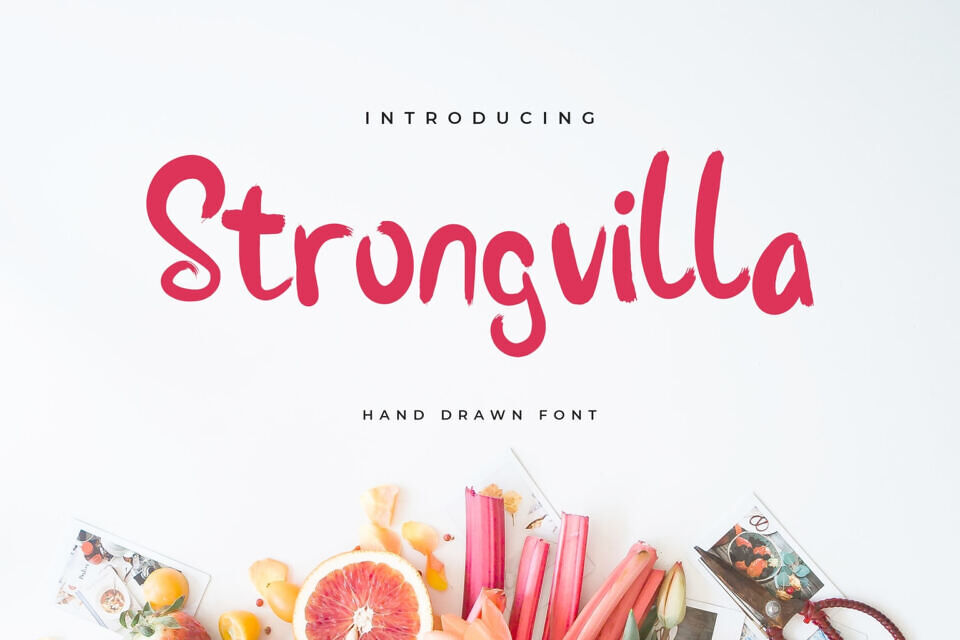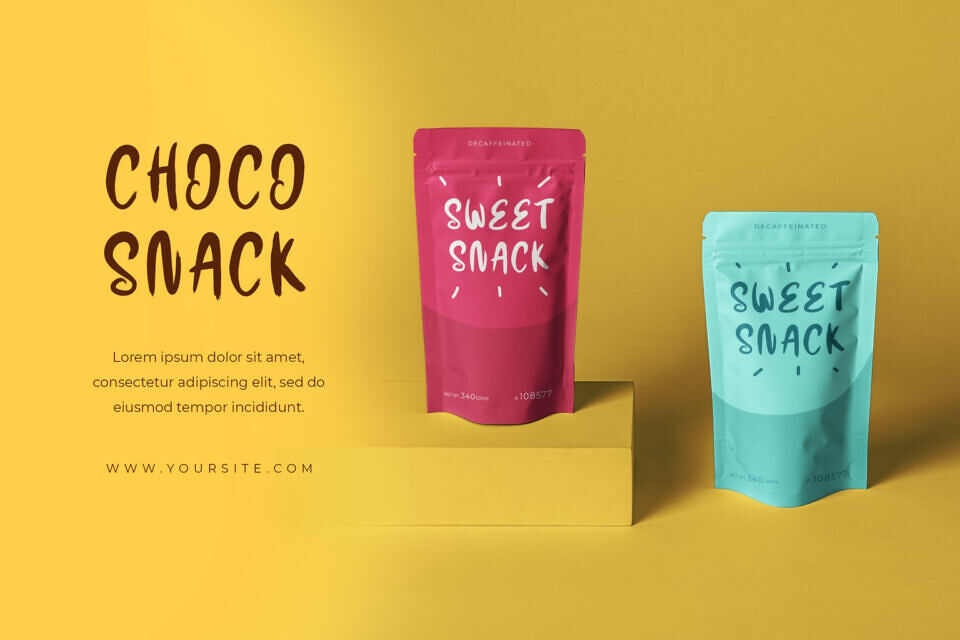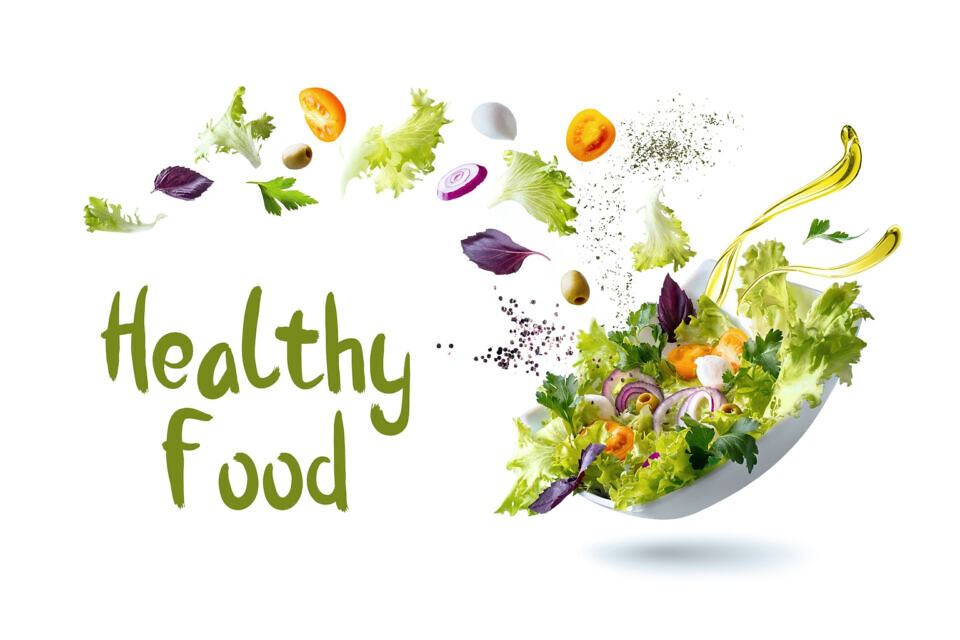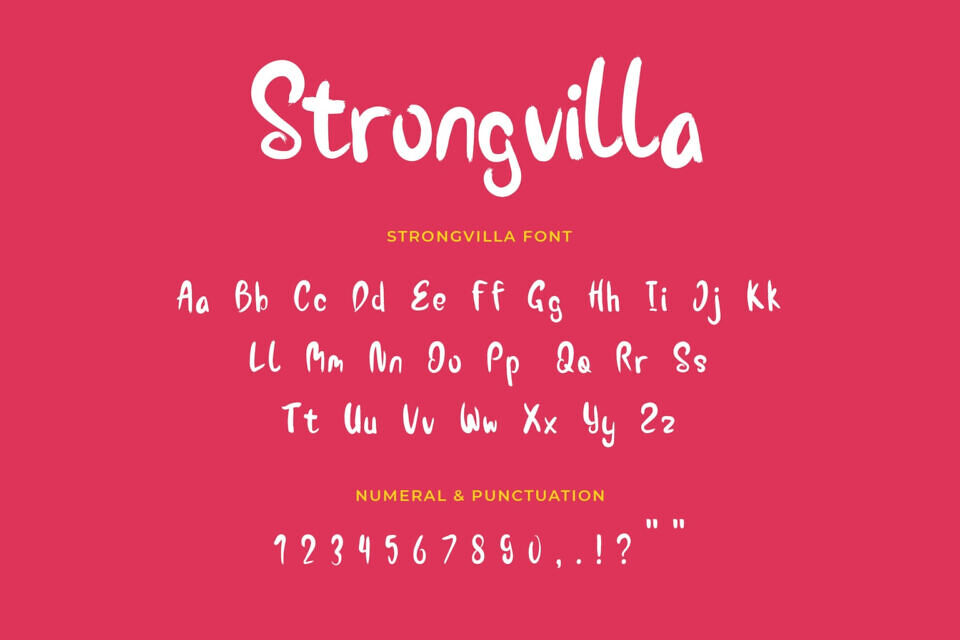
Strongvilla is a sweet and flowing brushed handwritten font. Whether you’re looking for fonts for Instagram or calligraphy scripts for DIY projects, this font will turn any creative idea into a true piece of art!